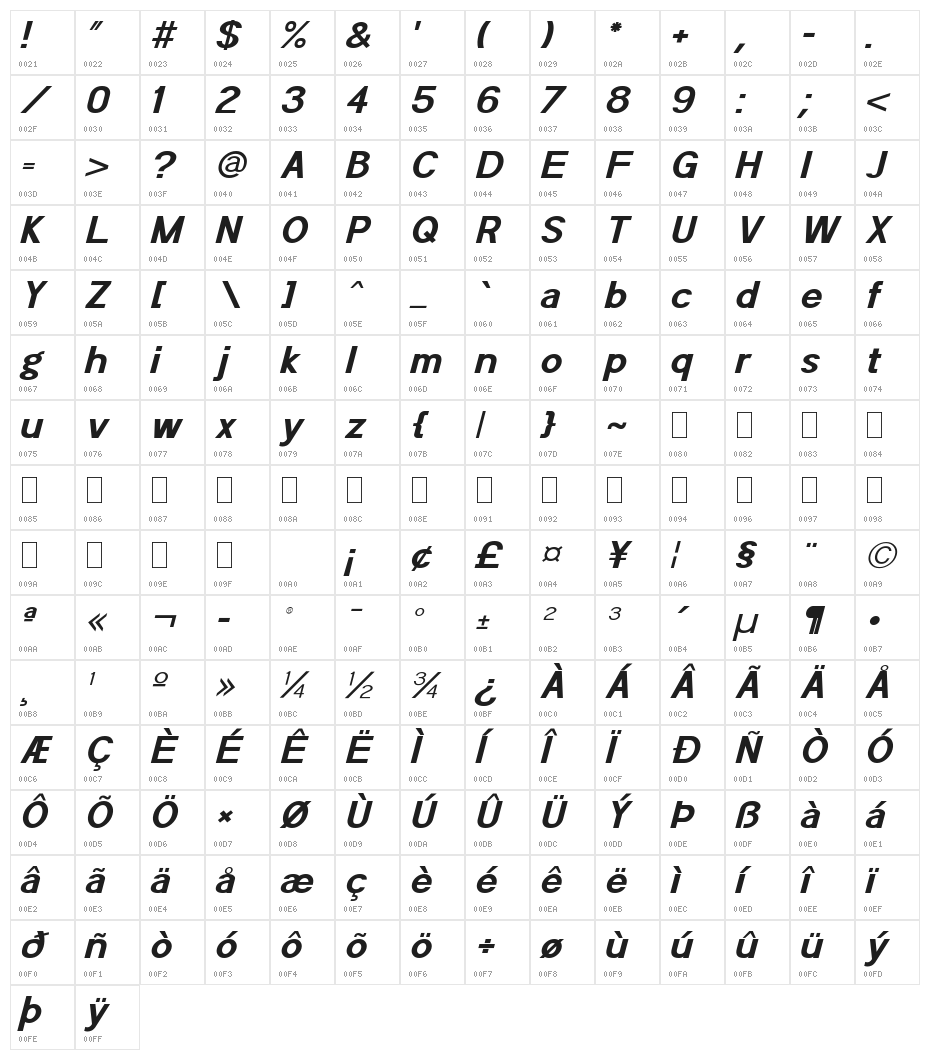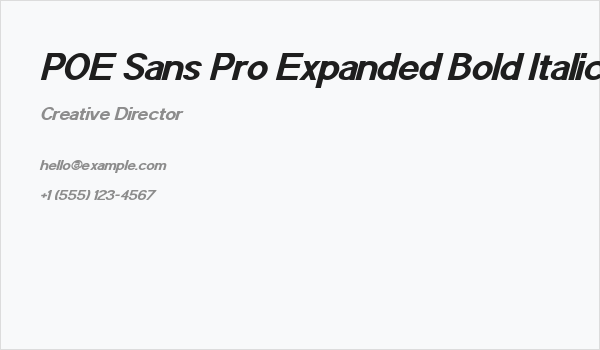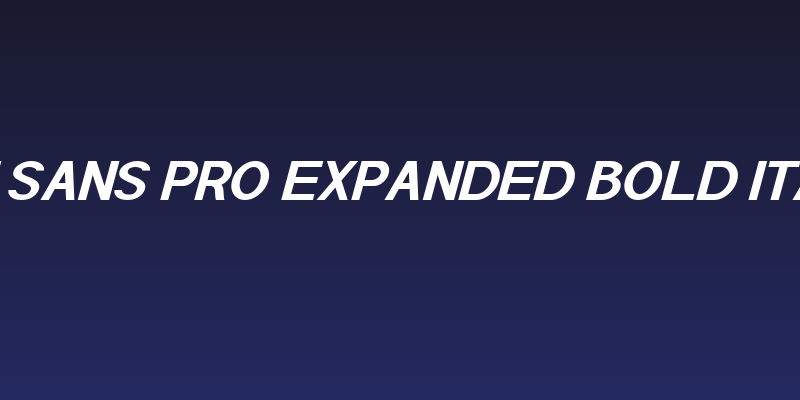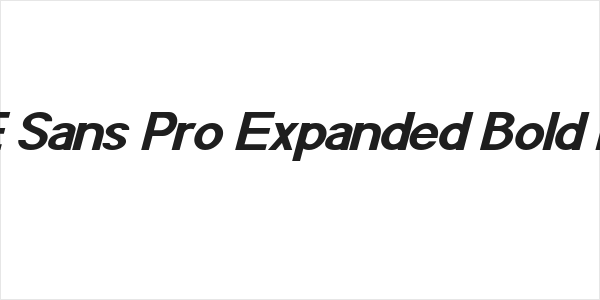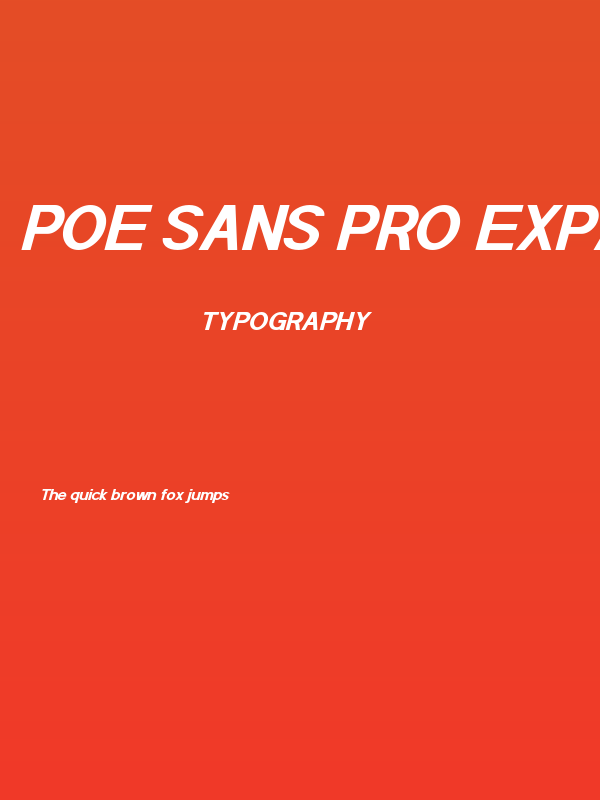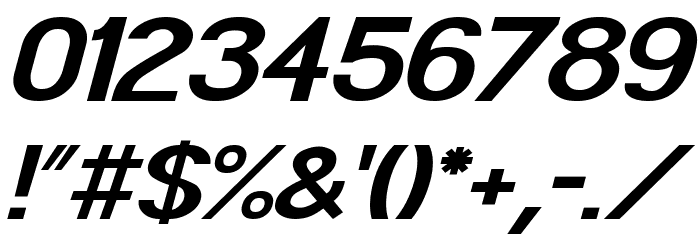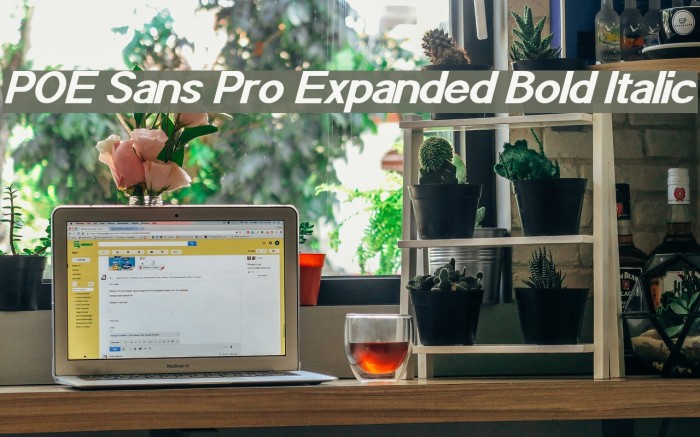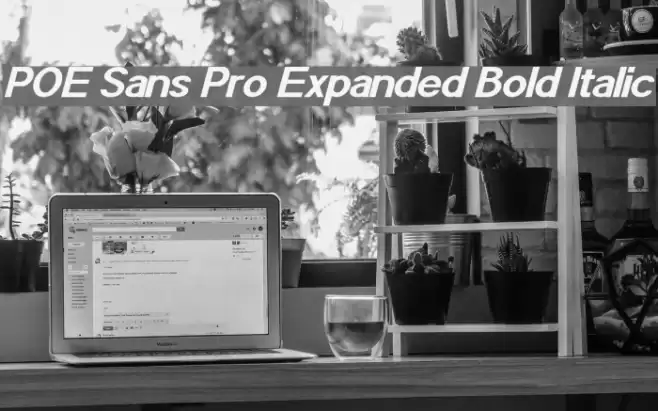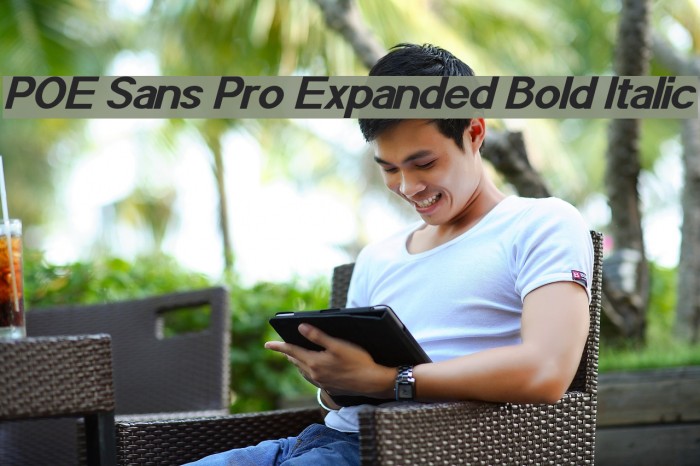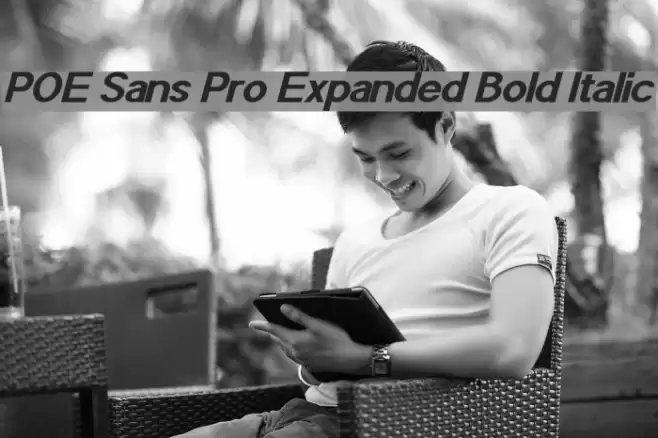
POE Sans Pro Expanded Bold Italic Font
POE Sans Pro Expanded Bold Italic Description
This typeface features a bold and italic style with an expanded width, giving it a strong and dynamic presence. The characters are clean and modern, with smooth curves and a consistent stroke weight that enhances readability. The italic slant adds a sense of motion and elegance, making it suitable for attention-grabbing headlines. The expanded width provides a spacious feel, allowing each character to stand out distinctly. The font includes a full set of uppercase and lowercase letters, numerals, and a variety of special characters, ensuring versatility for different design needs.